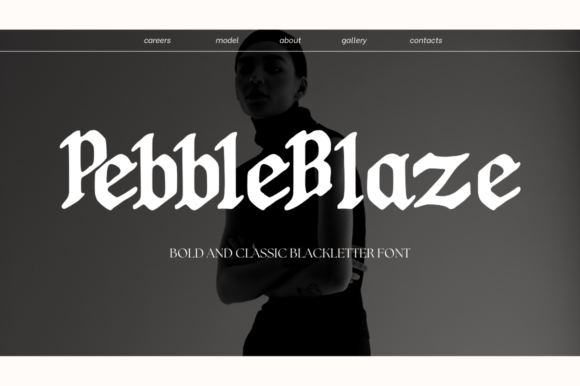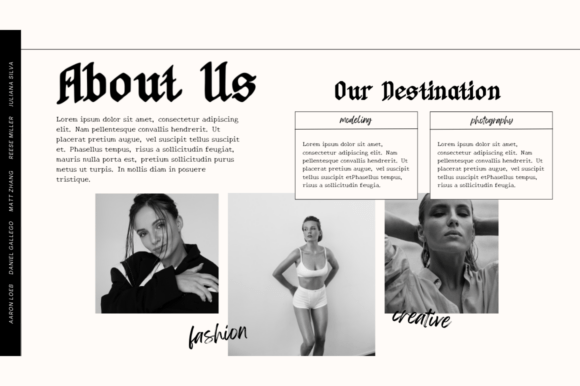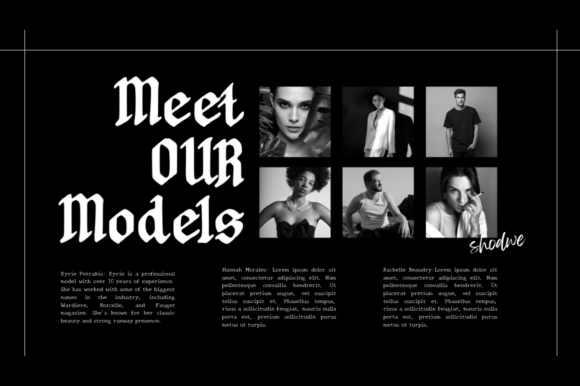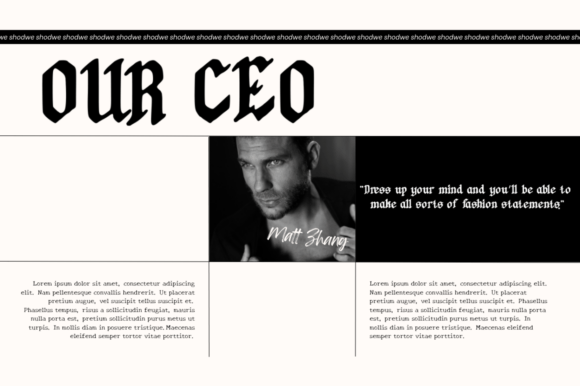
PebbleBlaze Font: Bold Blackletter for Vintage Branding & Logo Design
About the Pebbleblaze Font
Presenting Pebbleblaze Font, a unique and stylish typeface that will make your work stand out. PebbleBlaze is a bold and classic blackletter font that brings the medieval spirit to your design. Perfect for vintage posters, historical book covers, gothic branding, tattoos, or anything that requires an old-world aesthetic. Its sharp, angular letterforms give your typography a timeless and authoritative feel.
PebbleBlaze excels in headline treatments, short impactful statements, and logo design where its strong personality commands attention. It’s ideal for brands conveying heritage, tradition, or a touch of rebellious sophistication. Avoid using it for body text or lengthy paragraphs; its bold forms hinder readability in continuous text. Similarly, UI applications would be inappropriate due to its low legibility at smaller sizes.
Pairing PebbleBlaze effectively requires considering its strong, angular forms. A clean sans-serif like Montserrat or a geometric sans-serif such as Futura would offer a striking contrast, creating visual balance. For a softer approach, consider a classic serif like Garamond or a more modern serif like Playfair Display, which would temper the boldness while maintaining a sense of sophistication.
Its core personality is bold, authoritative, and slightly rebellious, making it unsuitable for projects requiring approachability or a friendly demeanor. It thrives in applications where strength and a historical aesthetic are primary considerations.
Pebbleblaze Font Usage Examples
Pebbleblaze Font Example